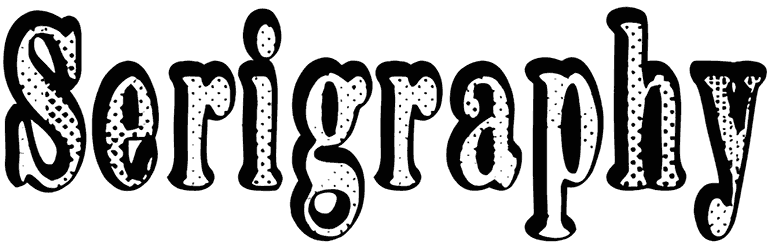
Serigraphy Font
Serigraphy is an old school font that helps your graphic content to have a beautiful dotted touch. This retro font comes with a 3D style, so it can grab the attention of the audience at first glance and improve the efficiency of your artwork, including illustrations, book covers, logos, business cards, and brochures. Also, it can convey a sense of classic, dynamic, and dramatic.
Serigraphy